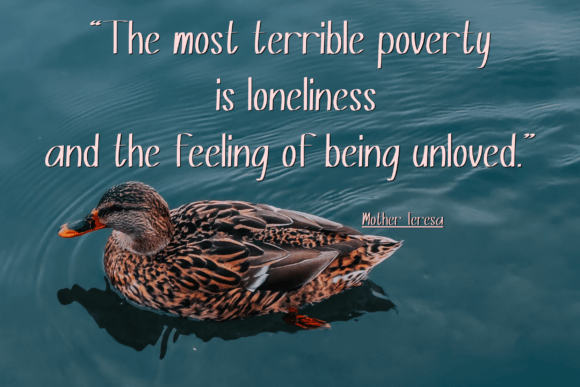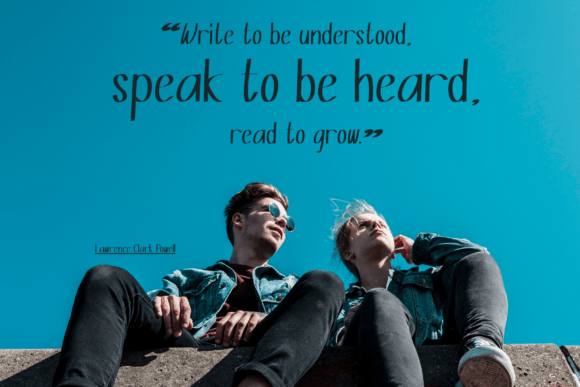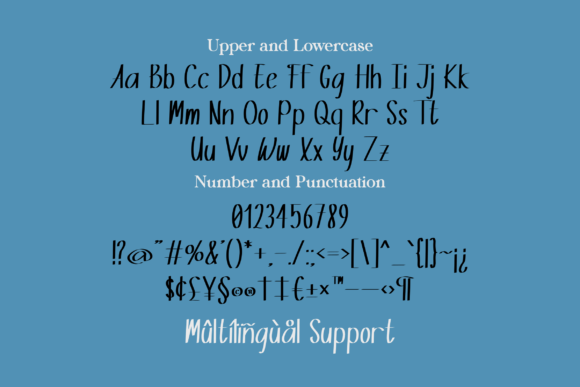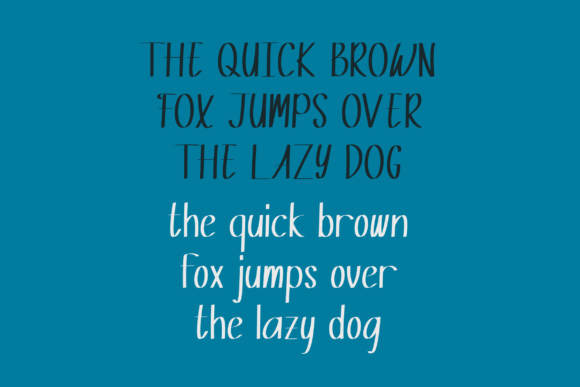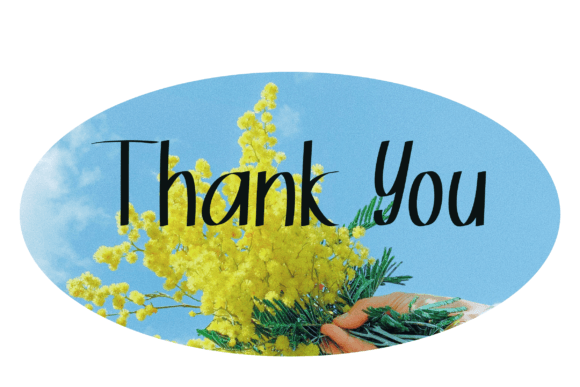
Introduction to Lalitpur Font
As a designer, you’ve probably found yourself staring at a blank page, struggling to convey the perfect tone for your next project. It’s that moment when the right font can make all the difference. For me, it’s the moment when I discovered the enchanting Lalitpur Font.
With its unique blend of elegance and informality, the Lalitpur Font has become a go-to design resource for many creatives. Its flowing strokes and gentle curves create a warm, human touch that’s perfect for adding a personal and friendly feel to your creative work. Whether you’re designing an invitation, a logo, or a website, the Lalitpur Font is an excellent choice for those looking to add a touch of warmth and personality to their high-quality designs.
Key Features of Lalitpur Font
- High-quality design resource for creative projects, ideal for use in graphic design, digital art, and other visual mediums.
- Designed with a unique aesthetic, Lalitpur Font is perfect for adding a touch of elegance and sophistication to any creative project.
Honest Review: Lalitpur Font
- ✨ High quality design: The font has a professional and sleek design that would be perfect for any creative project.
- ⚠️ Limited character set: The font only includes a limited character set, which may not be suitable for longer texts.
- ⚠️ Not suitable for body text: Due to its decorative nature, the font is not ideal for body text and is best used for headings or titles.
Overall, I’m quite impressed with the Lalitpur Font. While it has some limitations, it’s a great resource for designers looking for a high-quality, free download for their creative projects. With its sleek design and transparent background, it’s sure to add a touch of professionalism to any design.
Tips for Getting the Most Out of Lalitpur Font
Use Lalitpur Font on your creative project to give it a unique and elegant touch. This high-quality font is perfect for designing brochures, business cards, and other marketing materials. You can also use it to create a transparent background and make your text stand out.
The Lalitpur Font is ideal for a variety of design projects, including:
– Designing a logo or branding materials
– Creating a brochure or business card
– Designing a website or social media graphics
– Adding a touch of elegance to a presentation or report